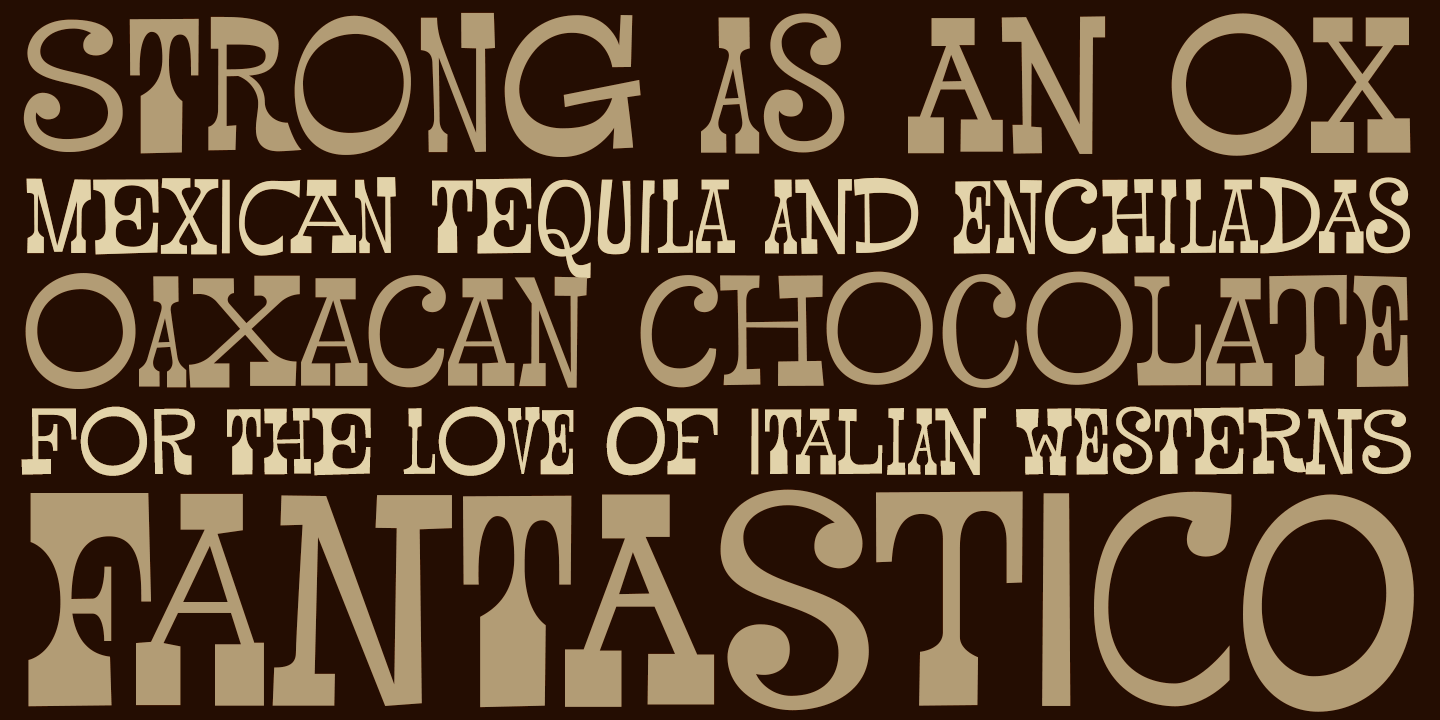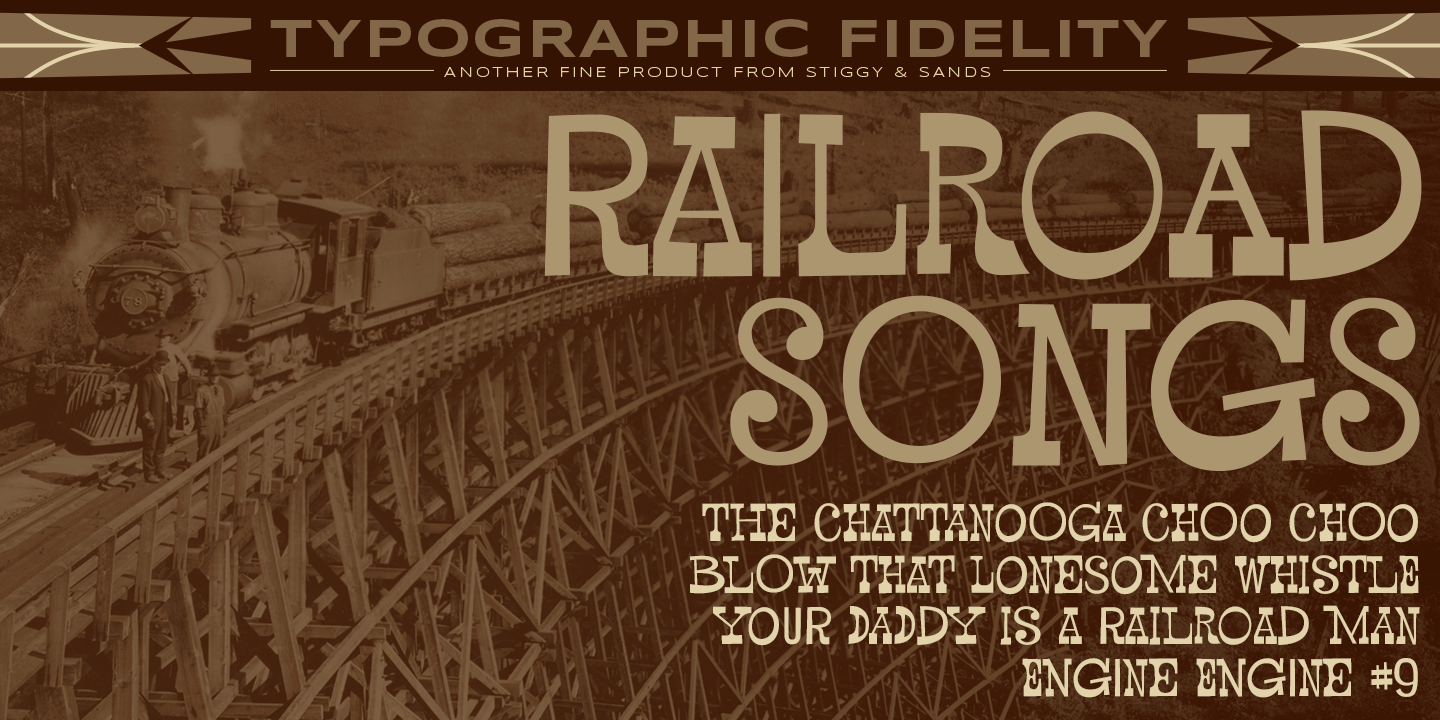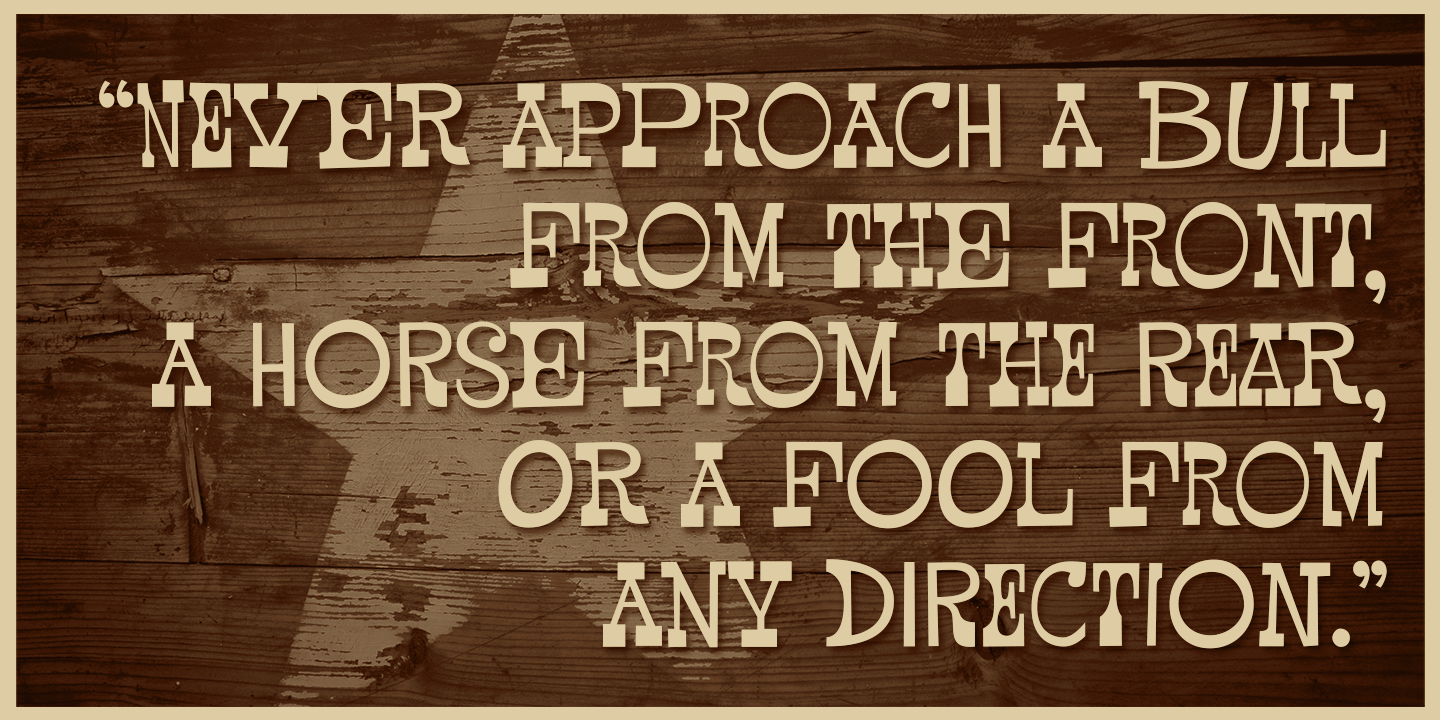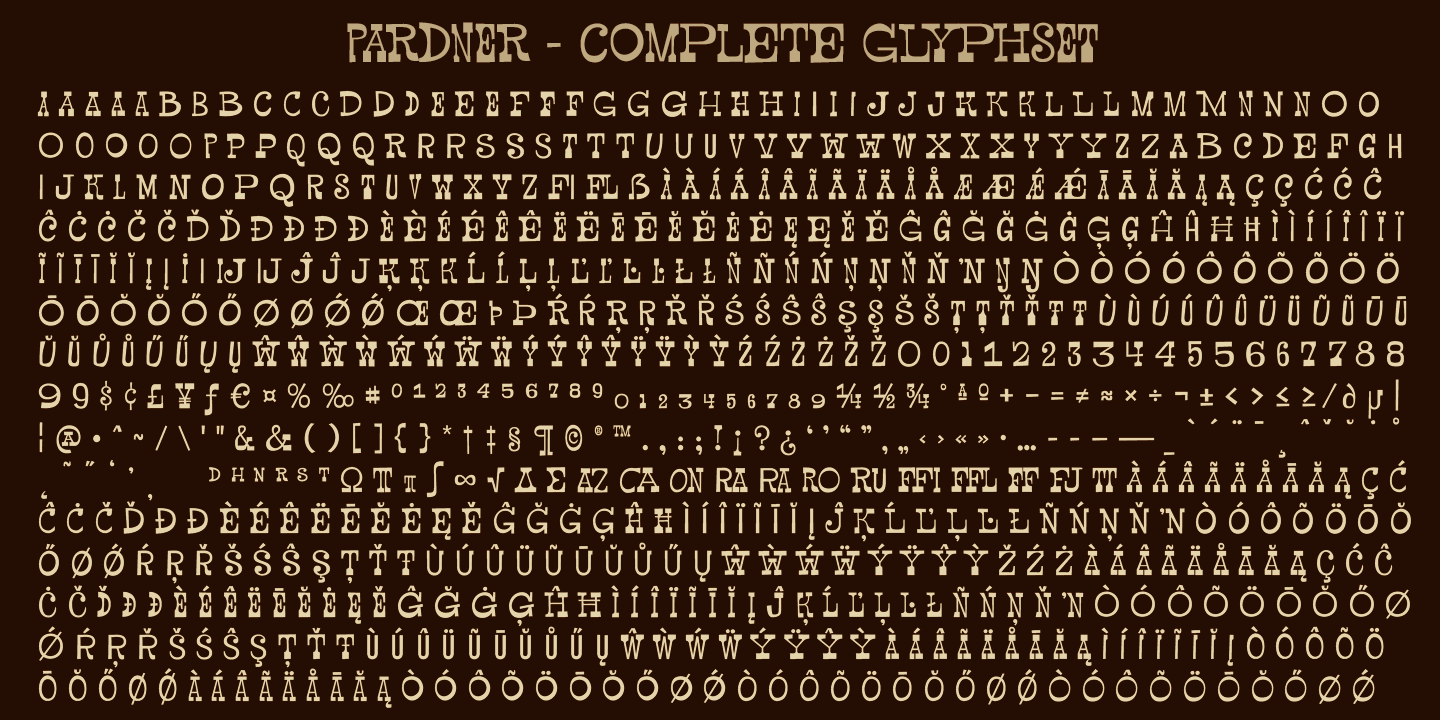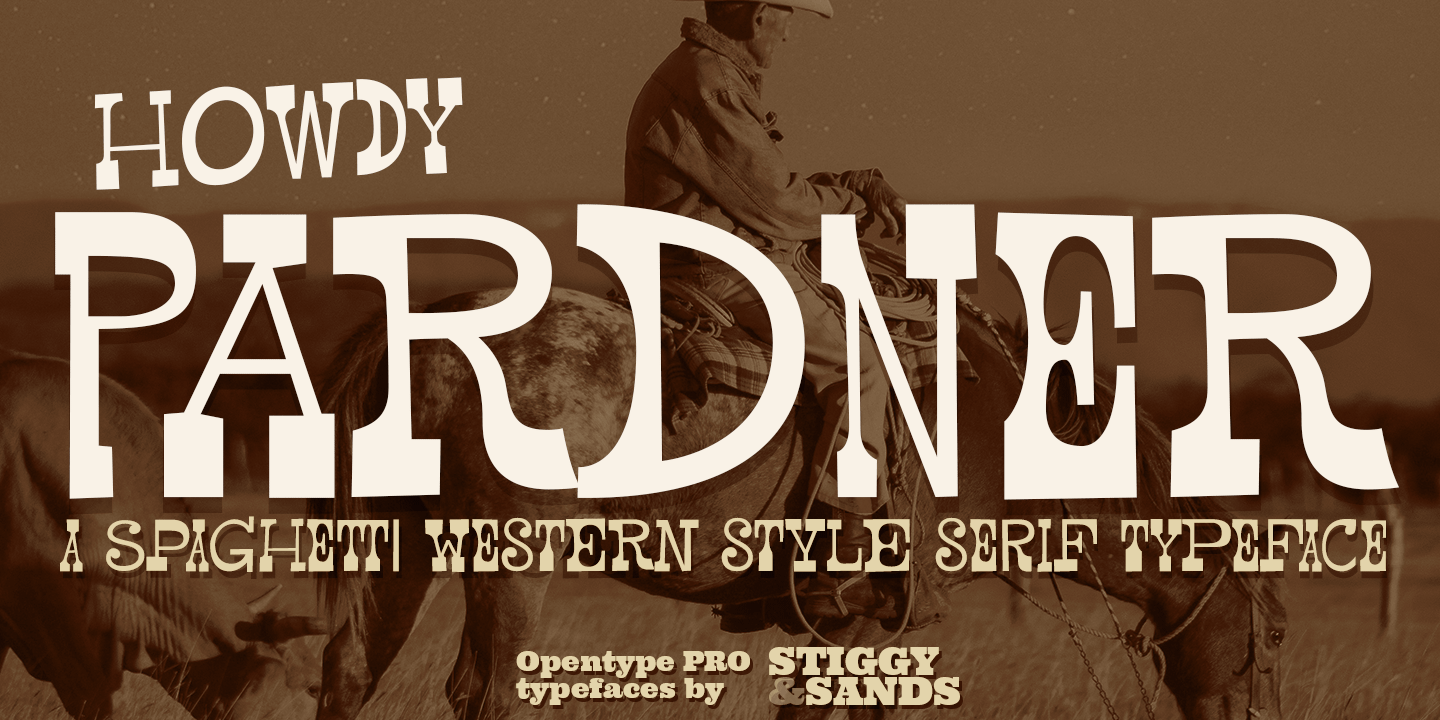
Pardner
Our Pardner font finds its inspiration from the title screens of the 1965 film ?West and Soda?, an animated Italian film that was a parody on American Westerns. Director Bruno Bozetto claimed in an interview that he was in fact the originator of the Spaghetti…